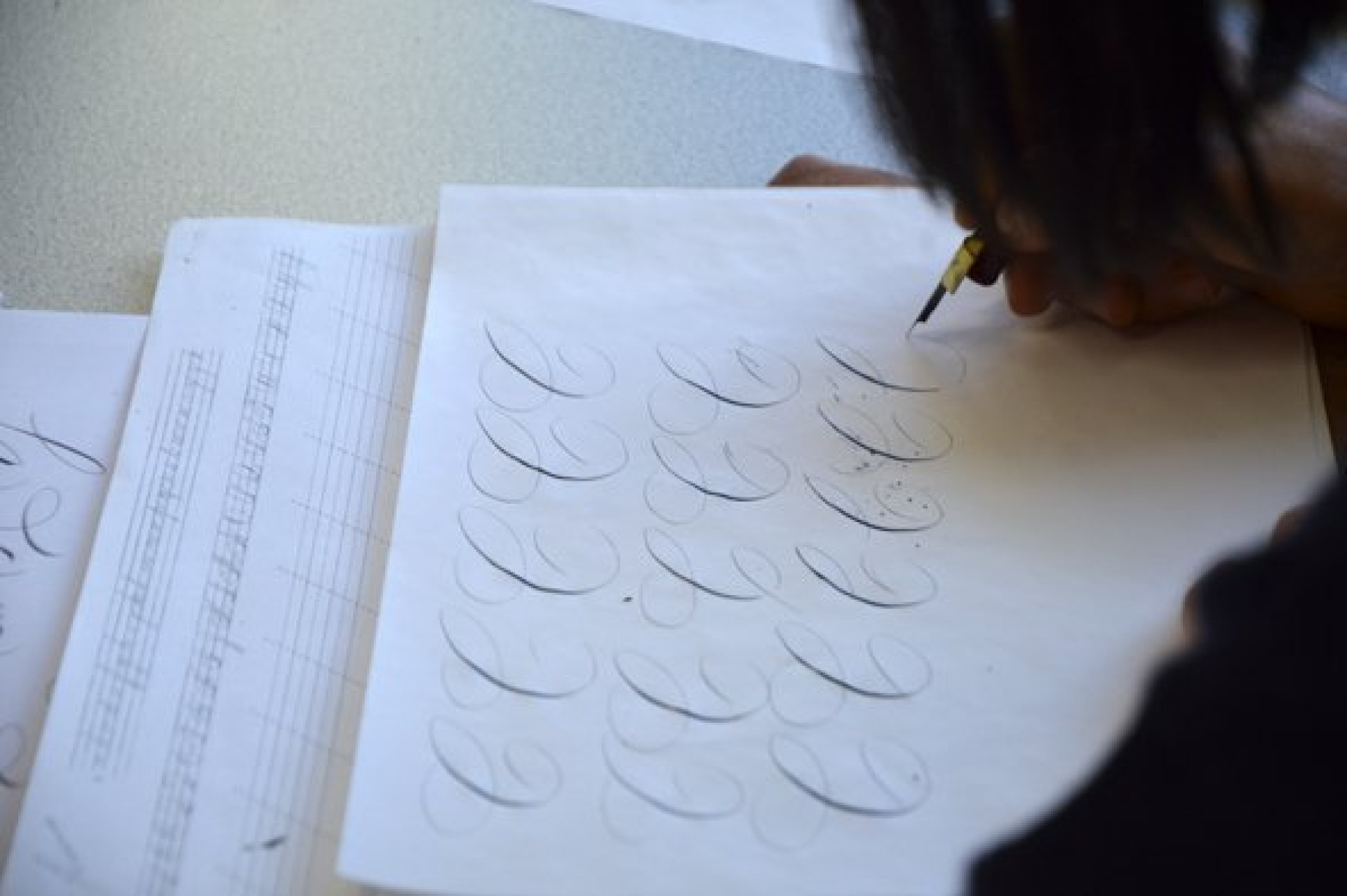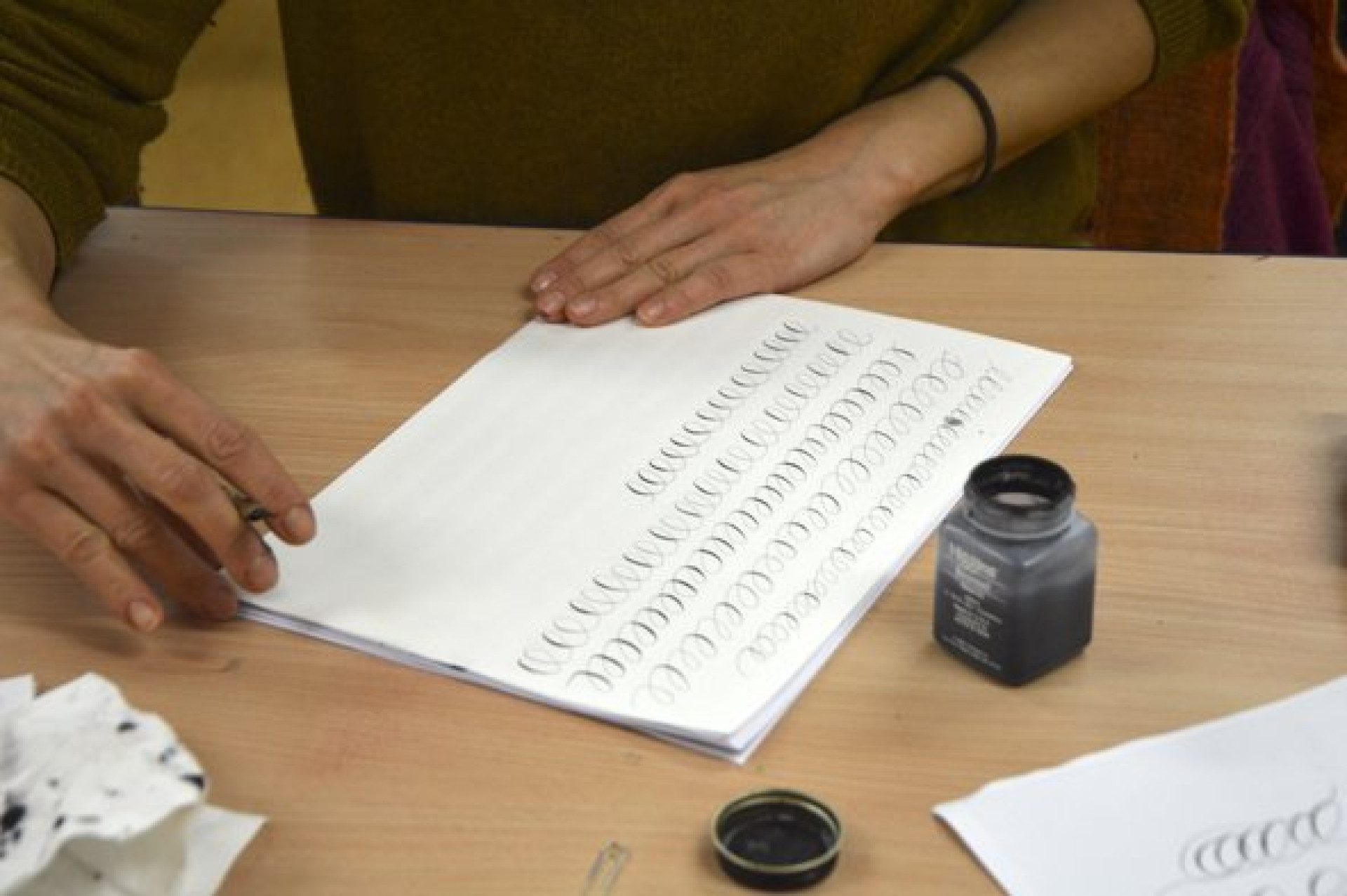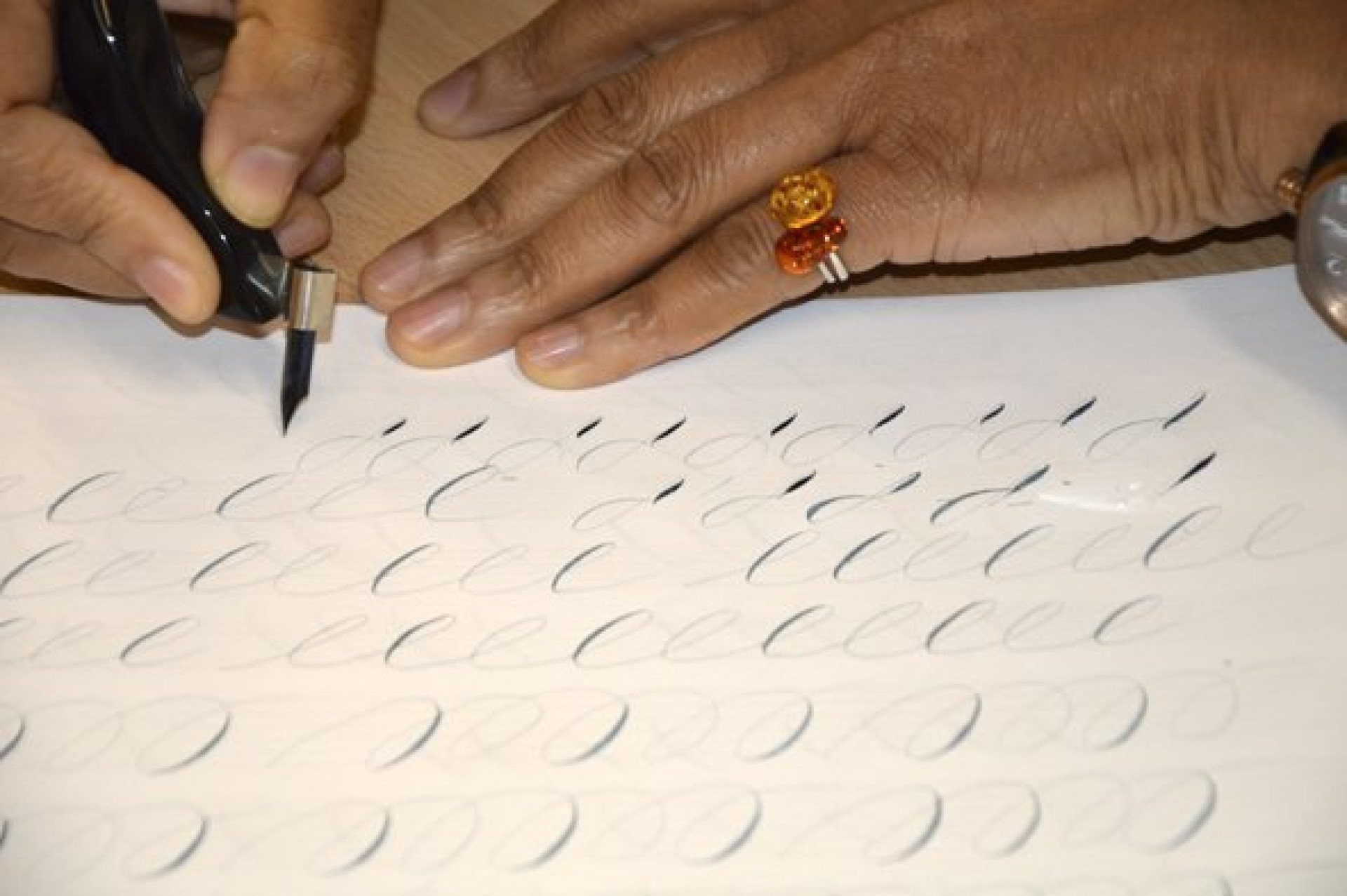
Spencerian Flourishes with James Farrell
It was a full class for our workshop on Saturday 14th January 2017 when we hosted the talented James Farrell to teach lettering enthusiasts the art of Spencerian flourishing. This was his third workshop for the SLLA on the subject of Spencerian Script, which dates back to the 1840s in the US.
James told us that after studying mechanical engineering, he began teaching himself Spencerian and Round Hand (Copperplate). He discovered IAMPETH on the internet — an international association, founded in the US in 1949, dedicated to practising and preserving the beautiful arts of calligraphy and penmanship. James has taken his penmanship a step further, developing a modern style of pointed pen lettering and art inspired by the patterns in natures and the cosmos. He has taught workshops all over Italy, the US and England during the last five years.
James gave us a handout which included examples of work from an excellent book ‘An Elegant Hand’ and samples of his own work. Tossing back his long hair, looking more like a Pre-Raphaelite poet than a calligrapher (what does a calligrapher look like?) he demonstrated the warm up exercises he always starts his own practice with, and he practices for several hours every day.
This is definitely not an easy hand to master, and requires a light and delicate touch. Surprisingly, we were encouraged not to write too slowly, rather to get a rhythm going to give fluidity. James said he practises listening to Jazz music! It is important to work with your paper at a slant and find a good pointed pen nib that suits you.  Leonard Principle and Vintage Hunts were recommended. Also an elbow or straight pen holder – its good to experiment to see what suits you best.  Also important is to sit comfortably and use a mixture of finger, wrist and full arm movements to get the right oval shapes required in the letters and the flourishes.
James plans to give more workshops and urged us to practise often and send him our work for his comments. James was a very generous teacher and we all enjoyed very pleasant day.